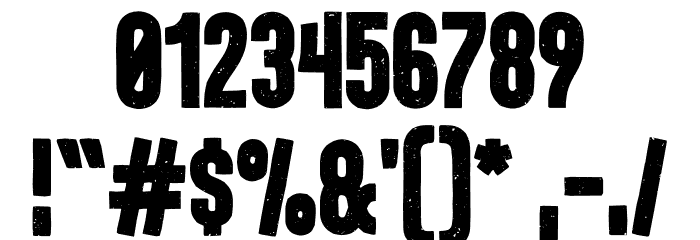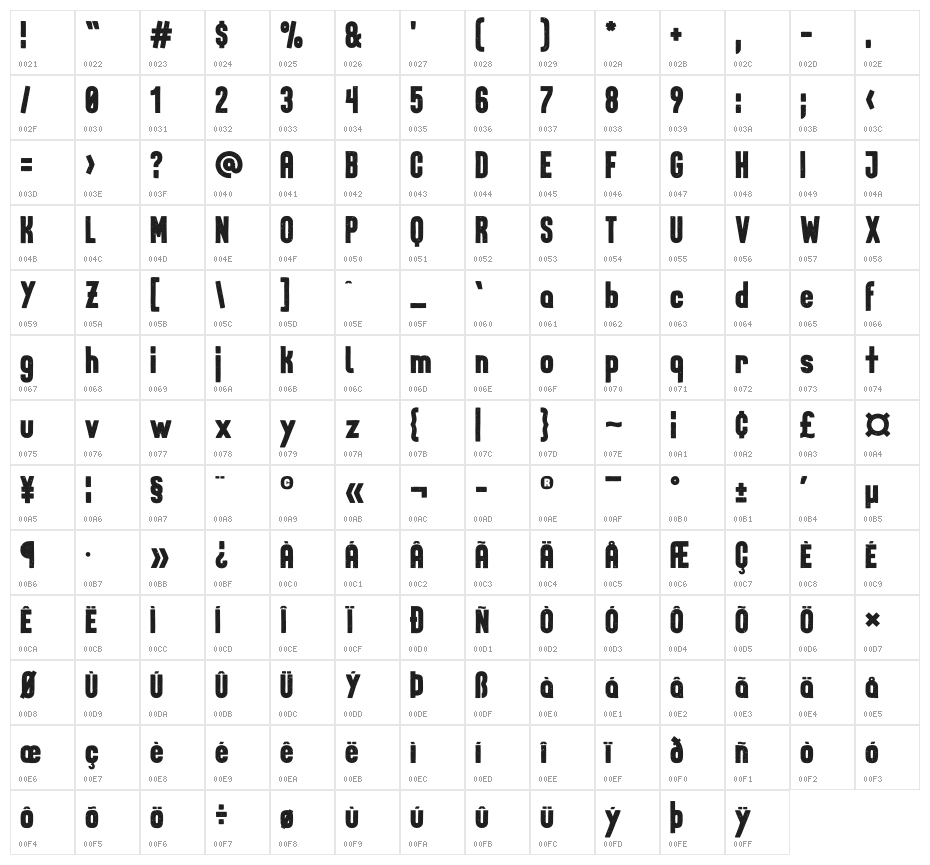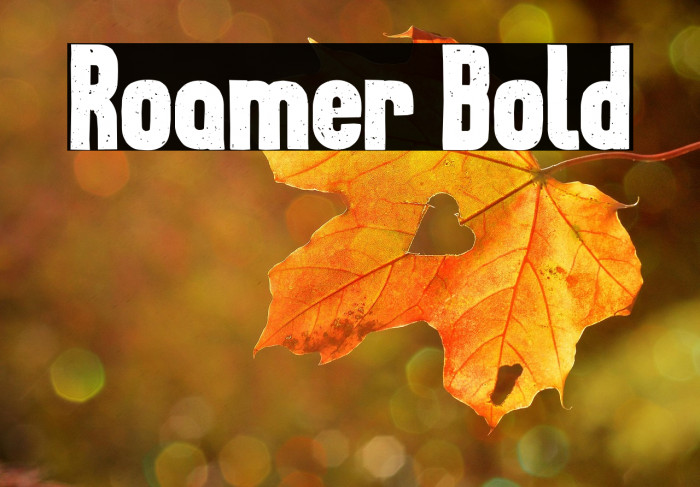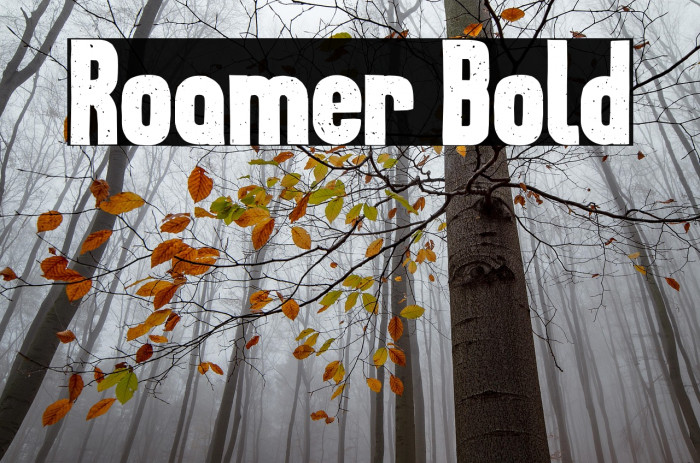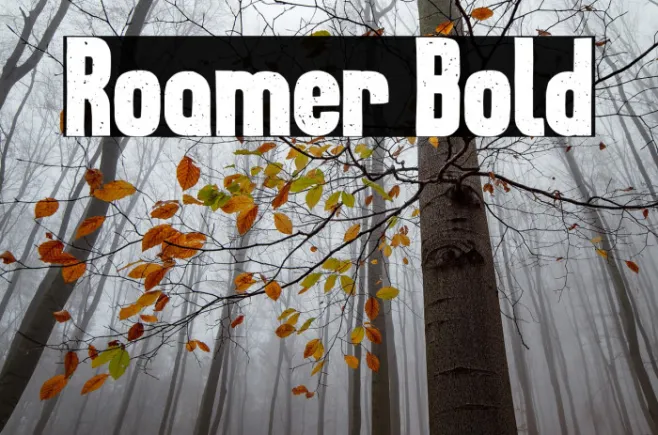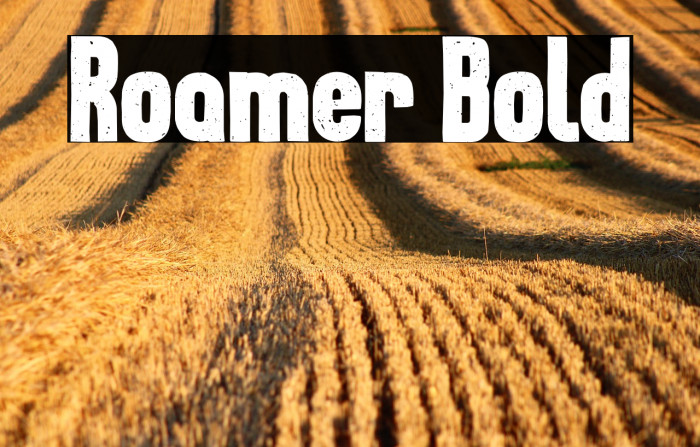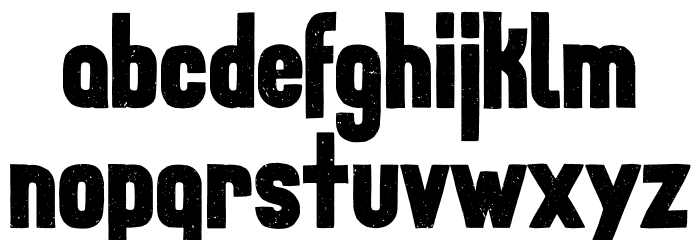
Roamer Bold Font
Roamer Bold Description
This bold, textured font features a distressed, vintage appearance that gives it a rugged and worn look. The uppercase and lowercase letters are uniformly bold, with a slightly condensed structure that enhances its strong visual impact. The numbers and special characters maintain the same distressed style, ensuring consistency across all glyphs. The font's boldness and texture make it ideal for projects that require a strong, eye-catching display, such as posters, headlines, or branding materials. Its unique style evokes a sense of nostalgia and authenticity, making it suitable for designs that aim to convey a rustic or retro aesthetic.
| Proposed Projects | Ideal for posters, headlines, branding, and any design requiring a strong, vintage look. |